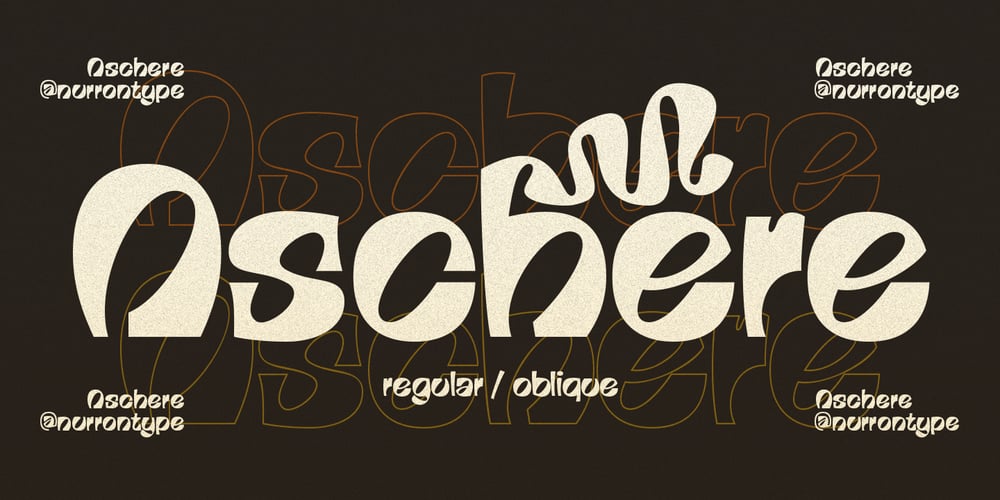
Aschere
Aschere font
Aschere Font Family was designed by Nurron Shodiqin and published by Nurrontype. Aschere contains 2 styles and family package options. Aschere is not just yet another retro font. It was designed carefully to give harmony ambient when you use it in your project. You can play with plenty ligature option. Or use unique stylistic to make your project stand out. Nevertheless you can find some prebuilt ornament, it would help to create instant logo or quotes. Be it as body text, or header/title, Aschere is the right choice.